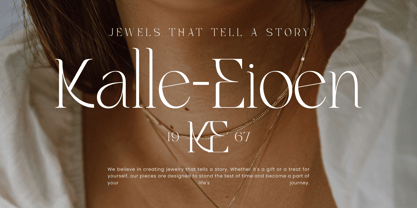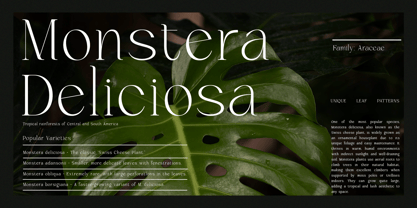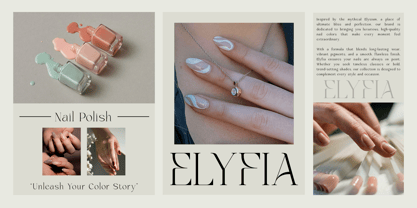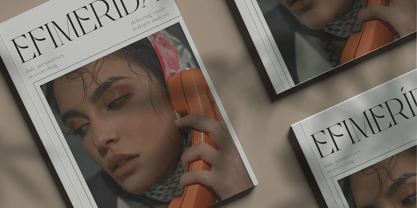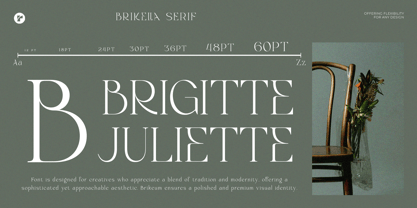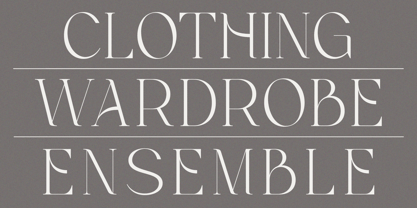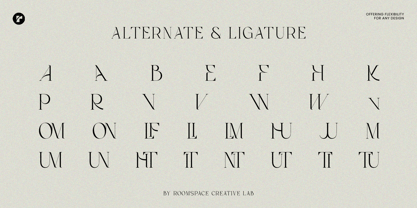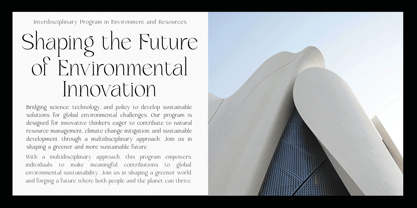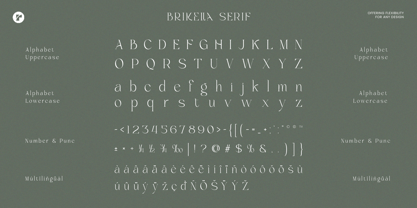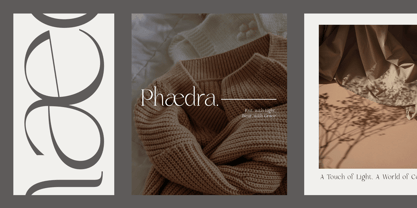
Brikelia
La familia tipográfica Brikelia fue diseñada por Bakhrudin Ja'far y publicada por Jafar07. Brikelia contiene 1 estilos.
Brikella is a sophisticated serif typeface designed for those who appreciate elegance and modernity. Its meticulously crafted letterforms seamlessly fuse traditional aesthetics with contemporary design, resulting in a refined look that's both polished and inviting. Ideal for a range of applications, including editorial layouts, branding, wedding stationery, premium packaging, logos, and luxury fashion, Brikella epitomizes timeless elegance and visual consistency. Its versatility is perfect for both digital and print media, providing a memorable presence across various platforms. With its graceful proportions and high-contrast details, Brikella exudes refinement and a modern classic charm, enhancing every creative endeavor.
A little from my personal design & background: My name is Bakhrudin Ja'far, I live in Malang, Indonesia. I am currently completing my degree in visual communication design and I have worked as a lettering artist and logo designer for many years. I finally started my studio called roocspace creative lab (jafar07) Studio a few months ago and with my team made my letters into typography.